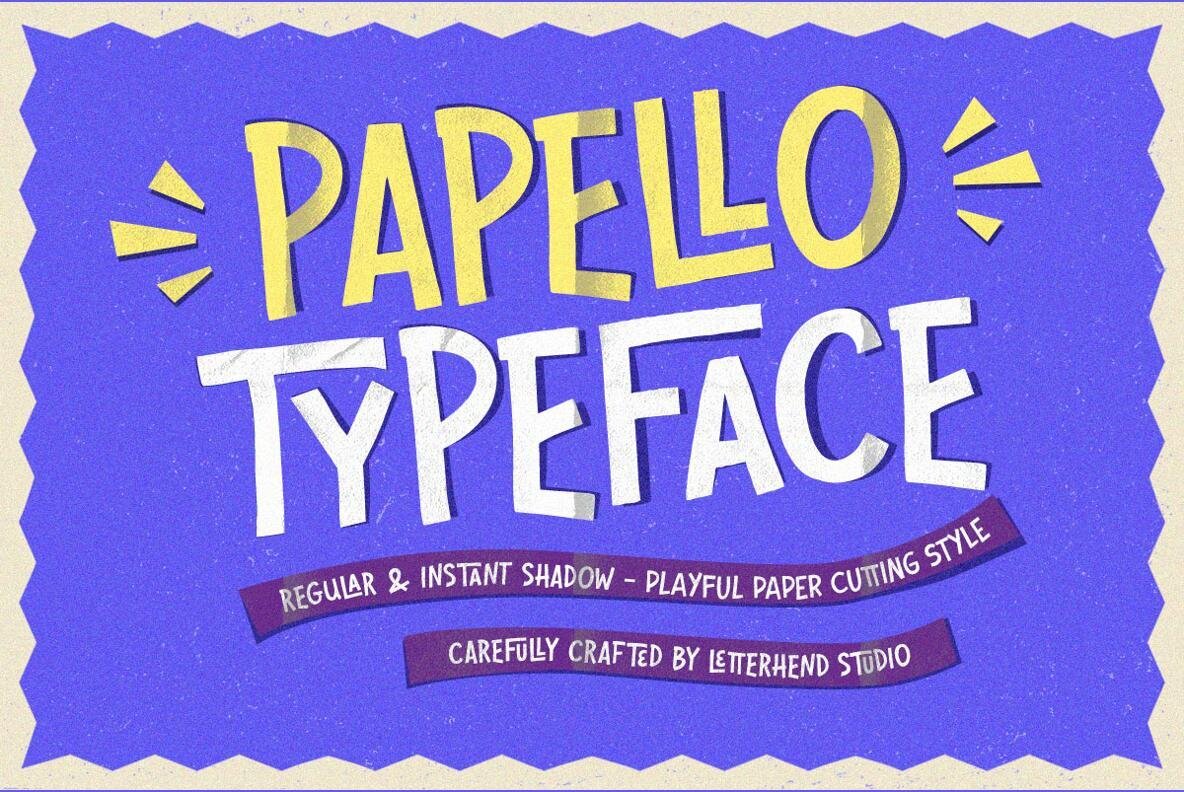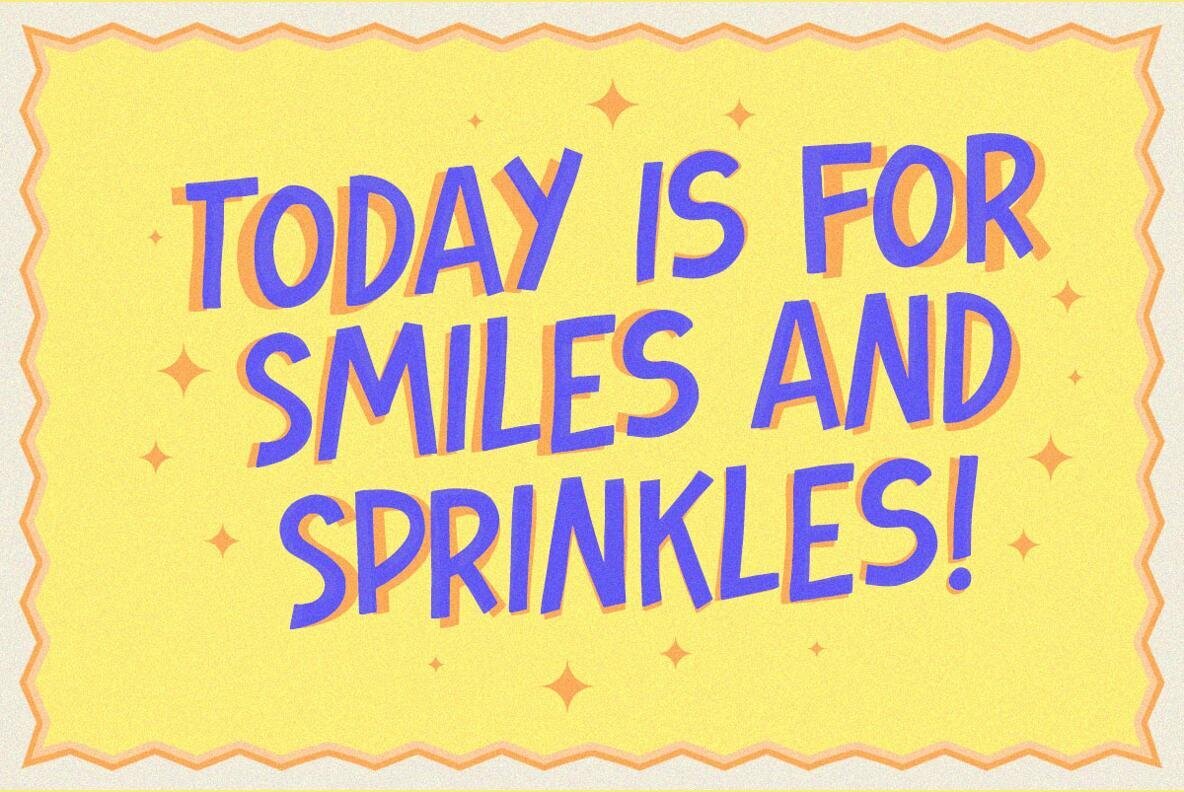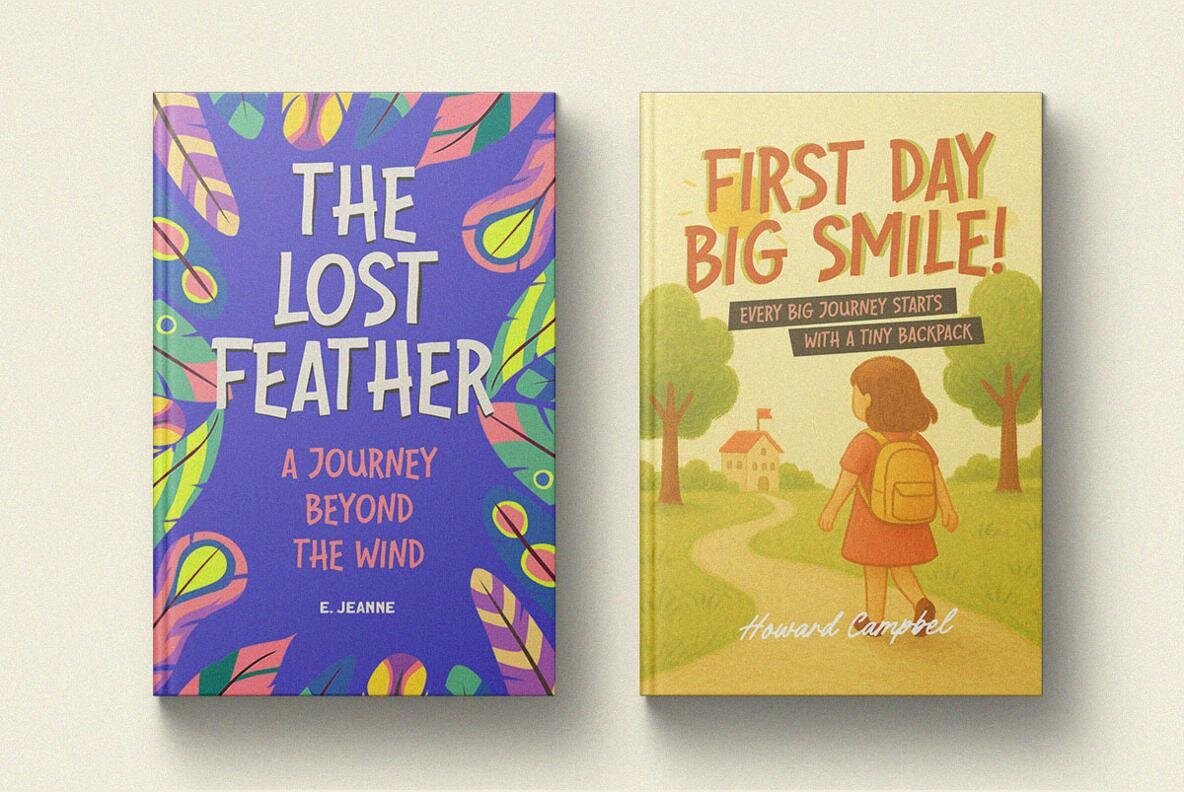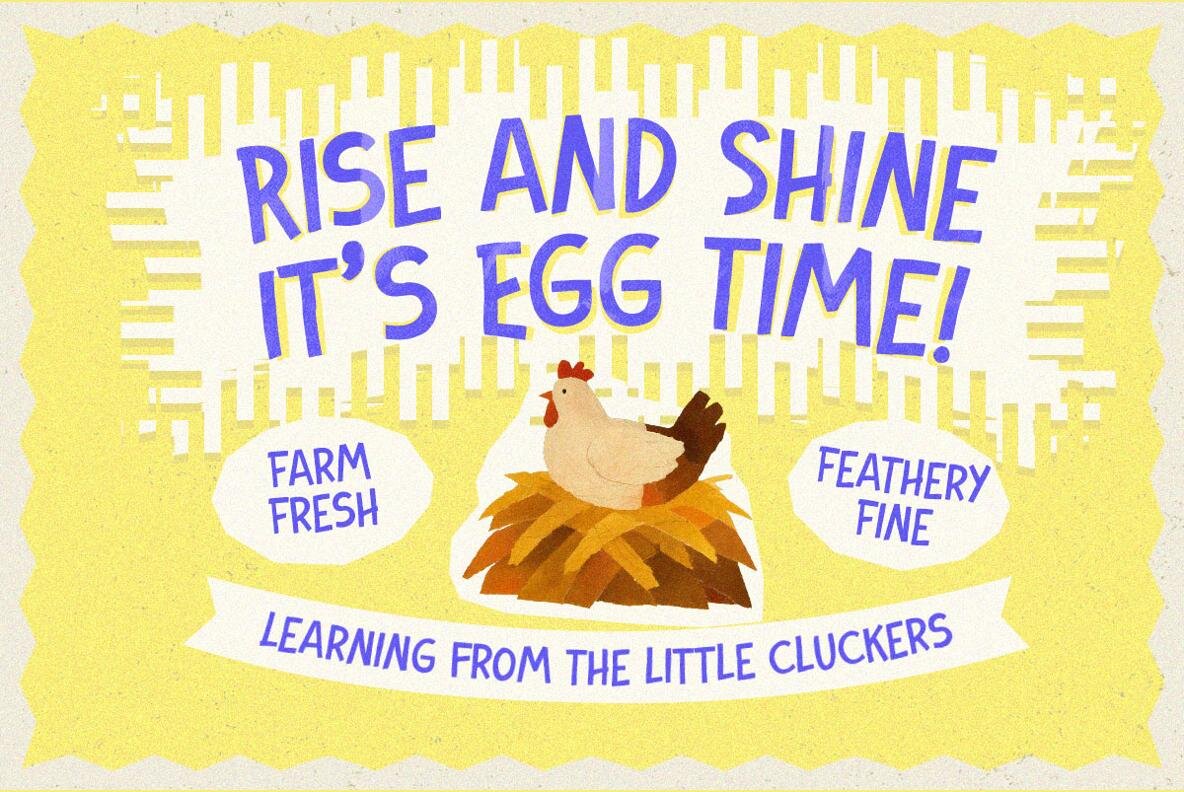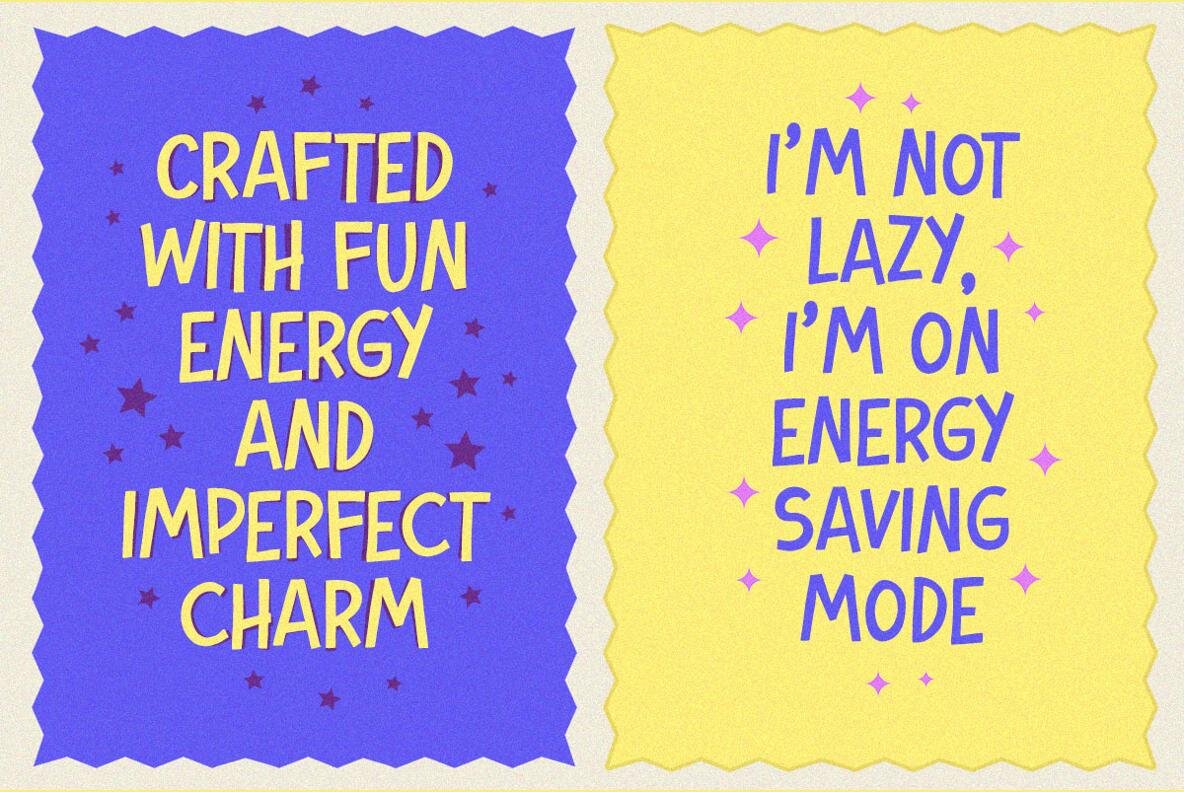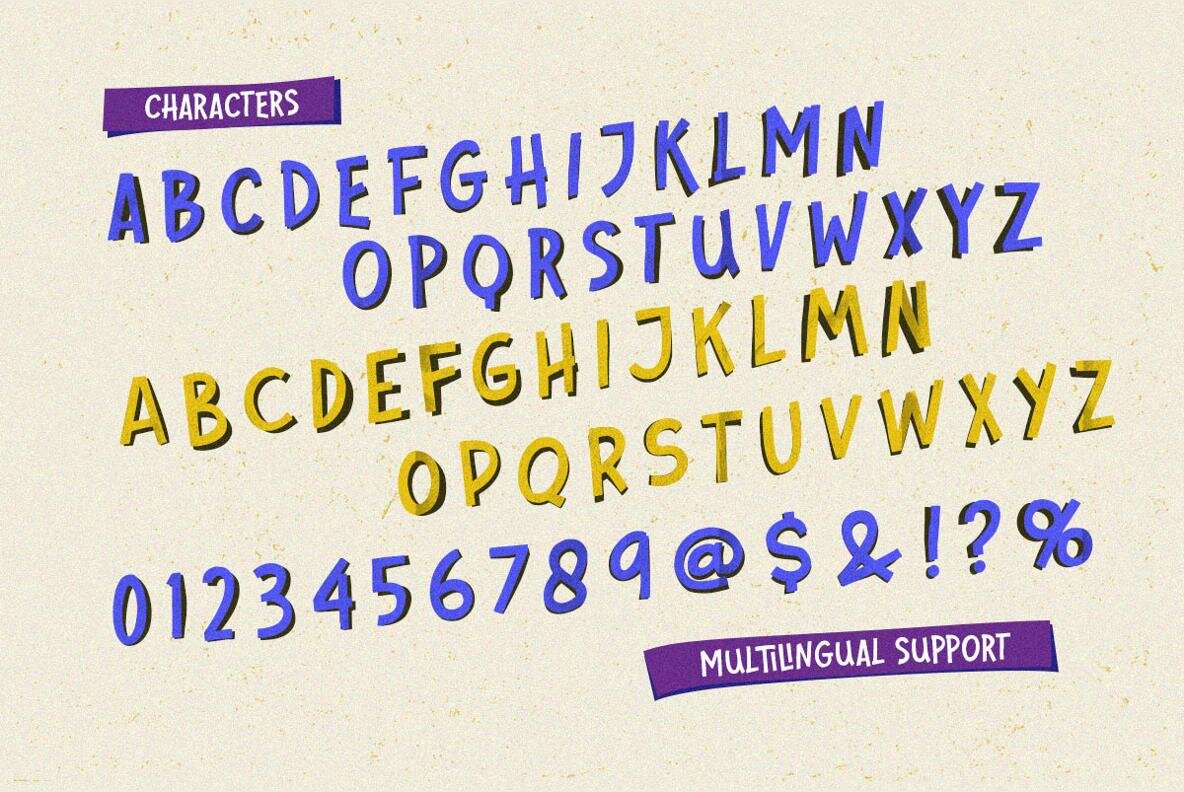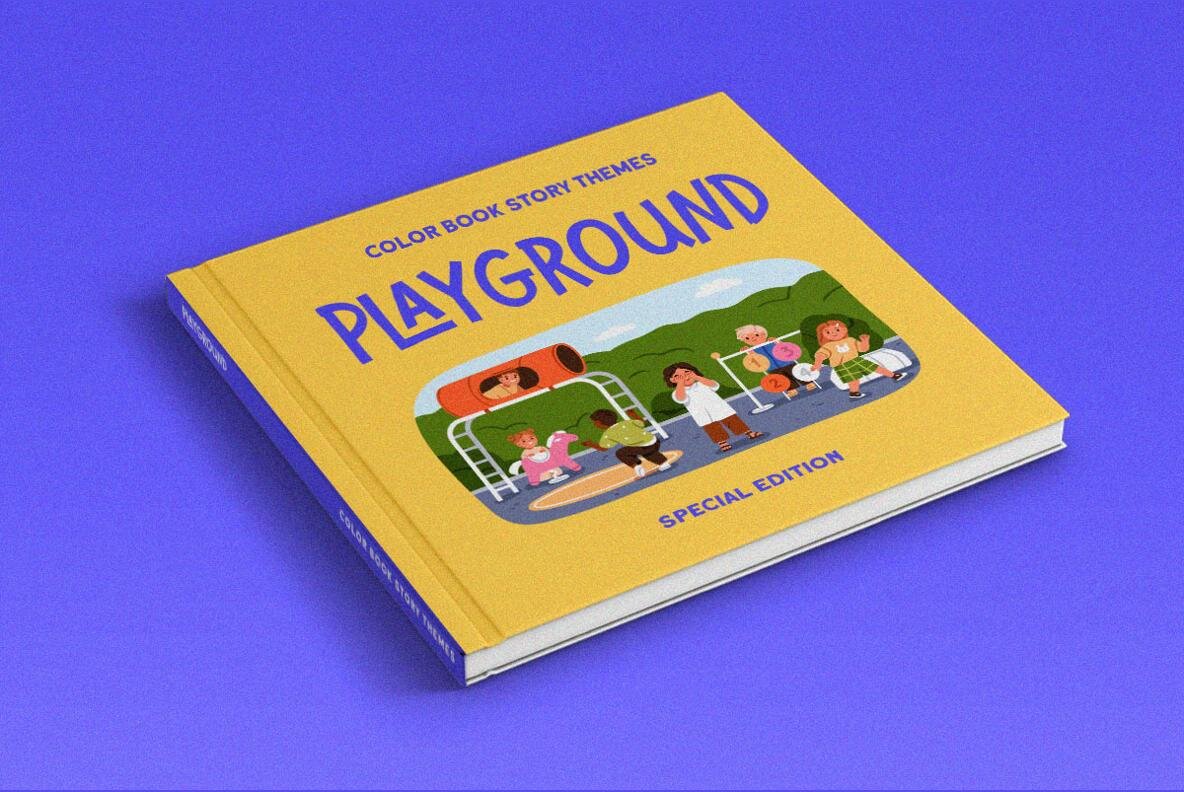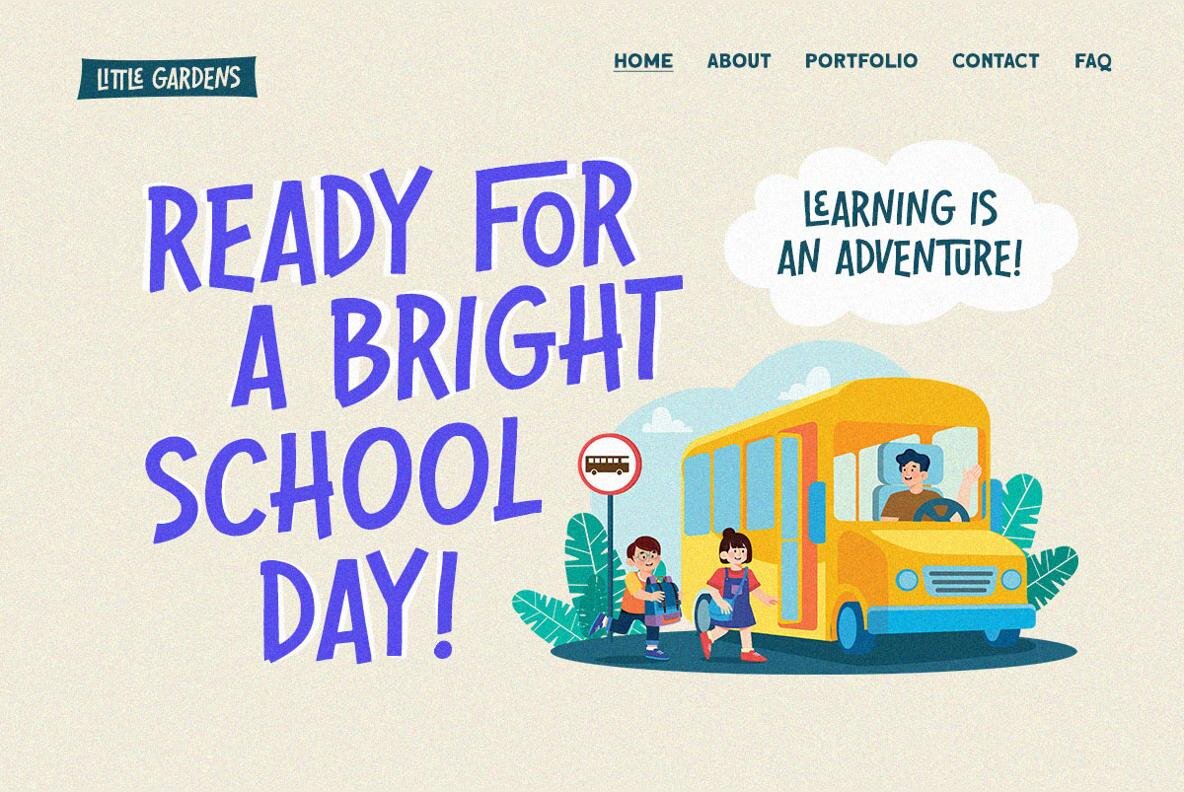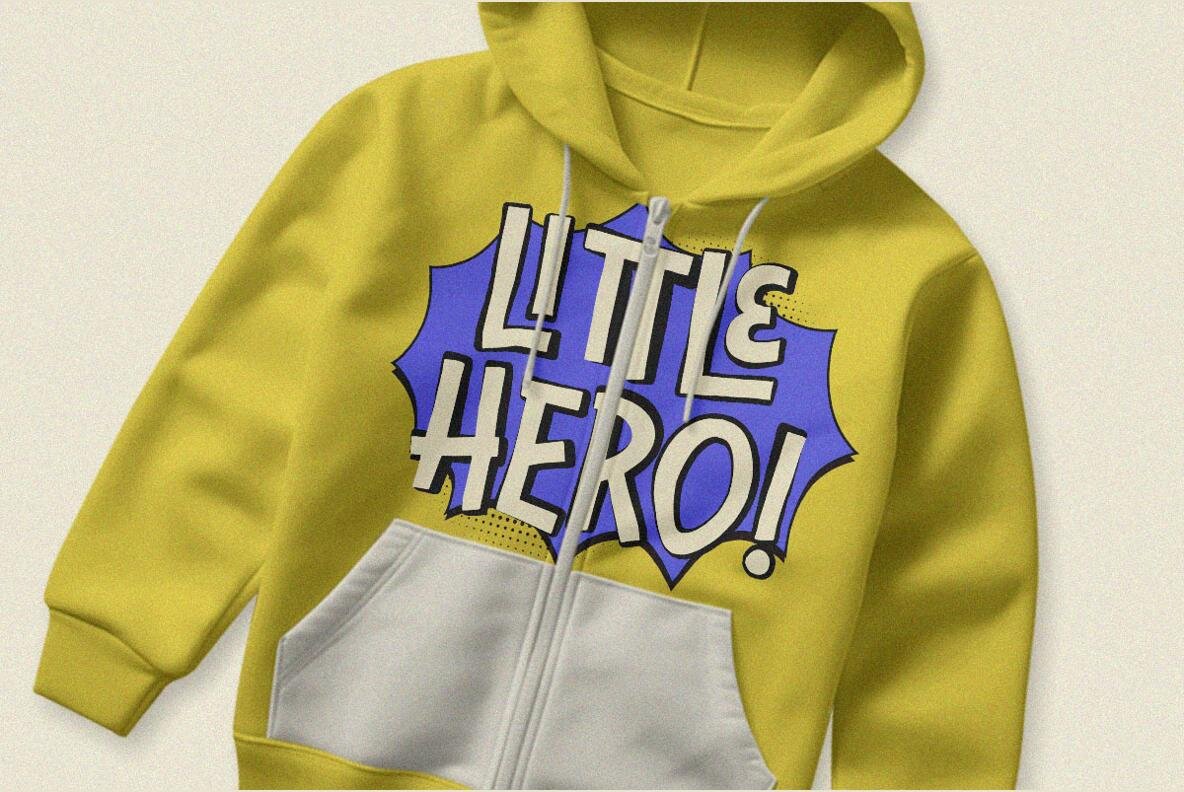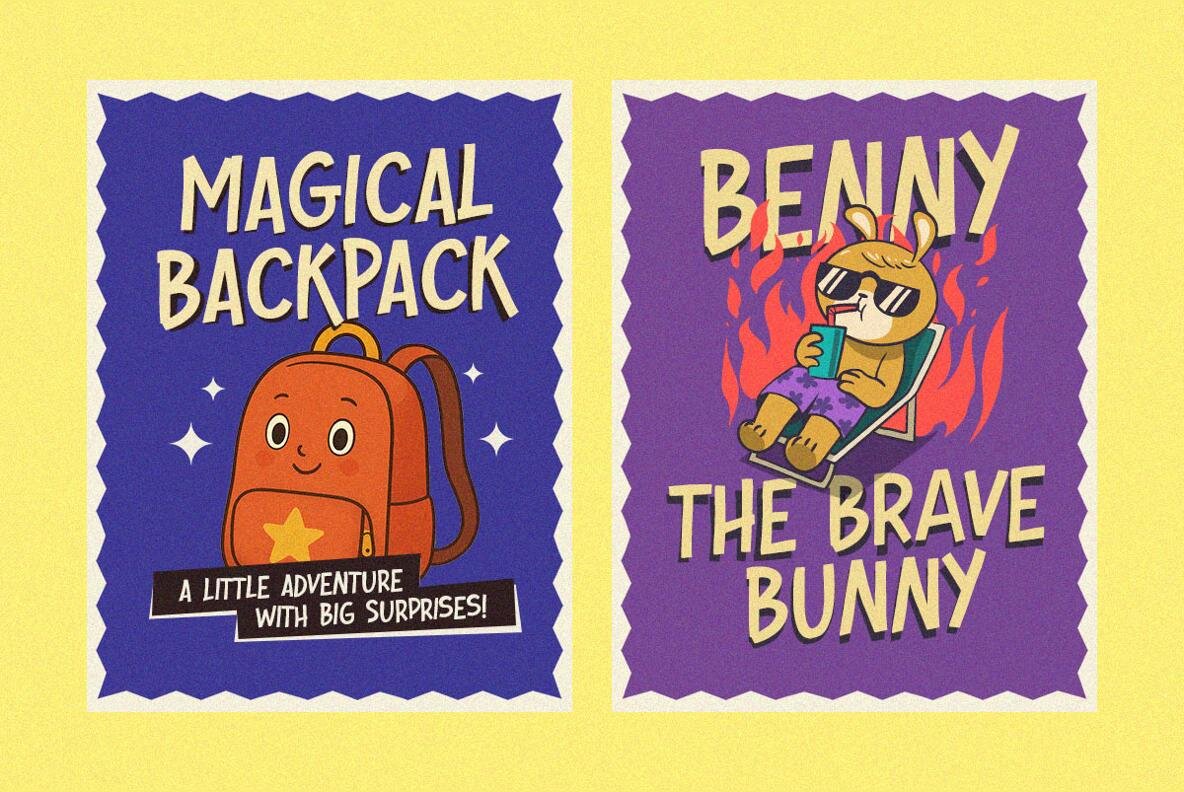
Papello Font
Papello captures the lively spirit of handcrafted designs with its quirky, layered letterforms. Each character feels carefully assembled, adding a cheerful tone that stands out in posters, children’s books, packaging, and creative titles. The irregular shapes and playful shadow effects infuse projects with a sense of movement and friendly informality. This typeface suits designers seeking a crafted look without sacrificing readability or impact.Playful Display Font Inspired by Paper-Cutting Art